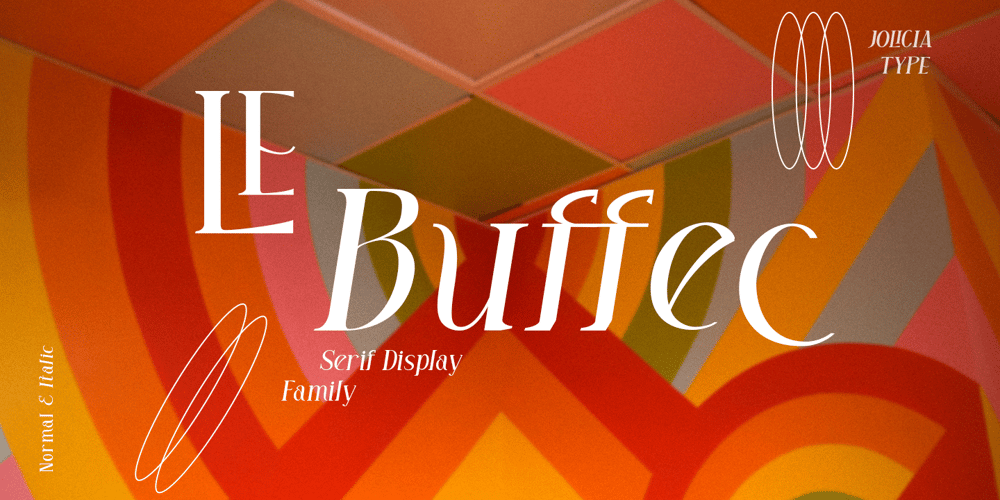
LE Buffec
LE Buffec font
LE Buffec Font Family was designed by Laire Banyu, Dyaharum Pungki Revitasari and published by Jolicia Type. LE Buffec contains 18 styles and family package options. LE Buffec is a modern display serif with 18 font style and complete alternates and ligature for Caps that looks stunning in just about every works. With Full Multilingual support. well-suited for advertising, branding, logotypes, packaging, titles, headlines and editorial design. Enjoy with LE Buffec font. Cheers! LE Buffec Features : · Multilanguange · Alternates · PUA Encoded · Font Family totals 18 fonts Note : this helps you to use all of our font functions · Adobe Photoshop go to Window – glyphs · Adobe Illustrator go to Type – glyphs